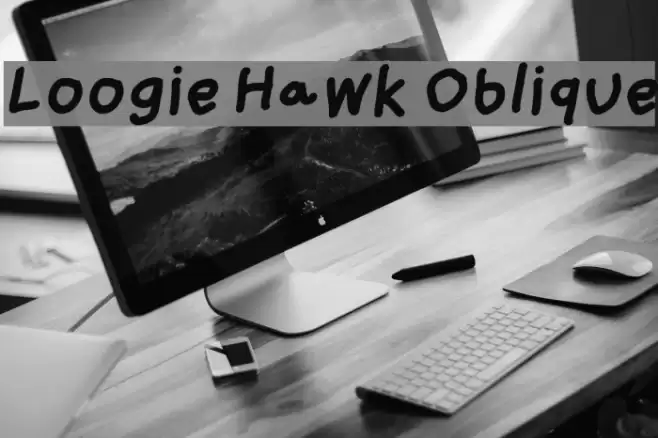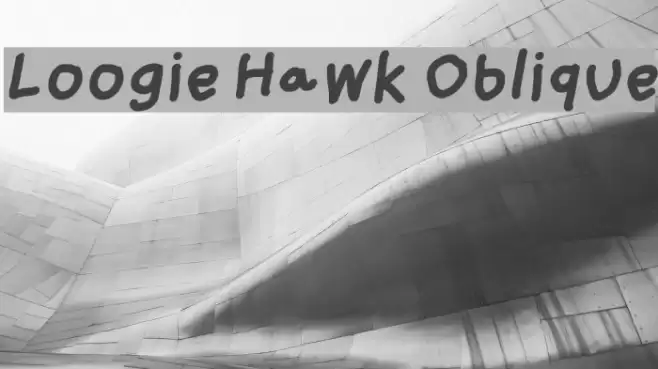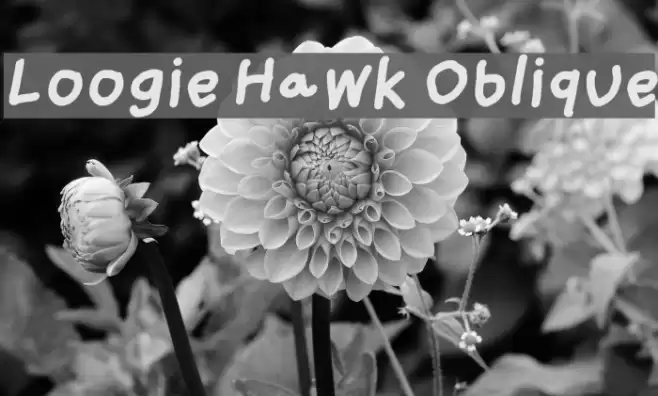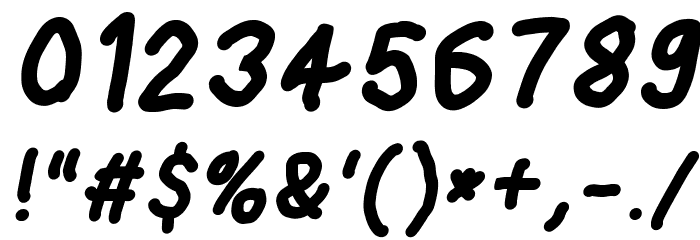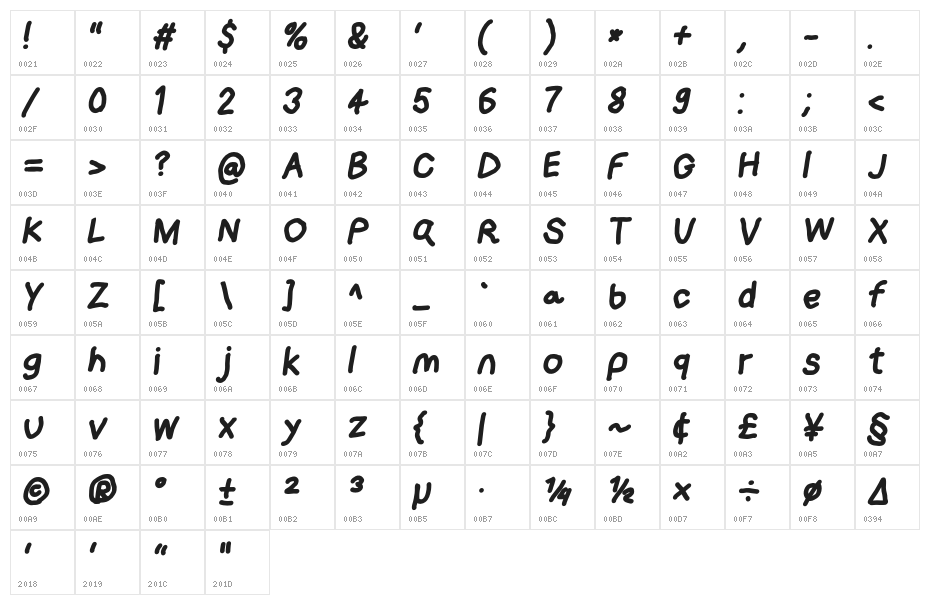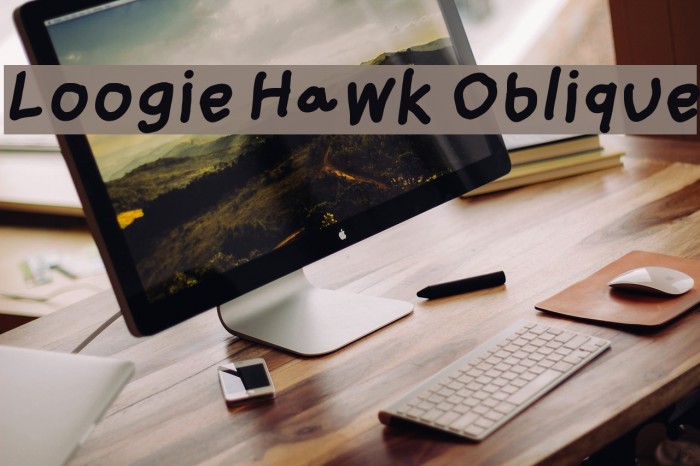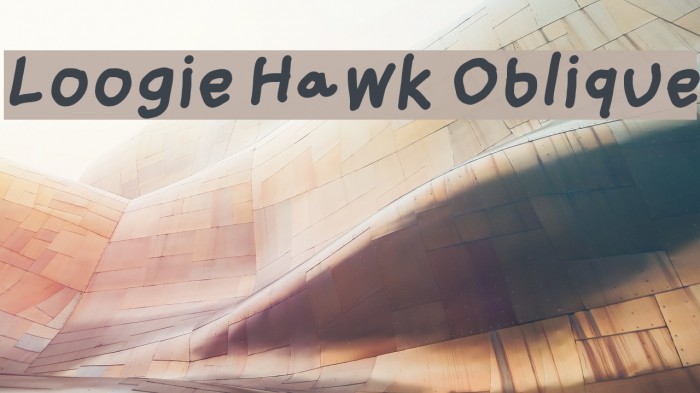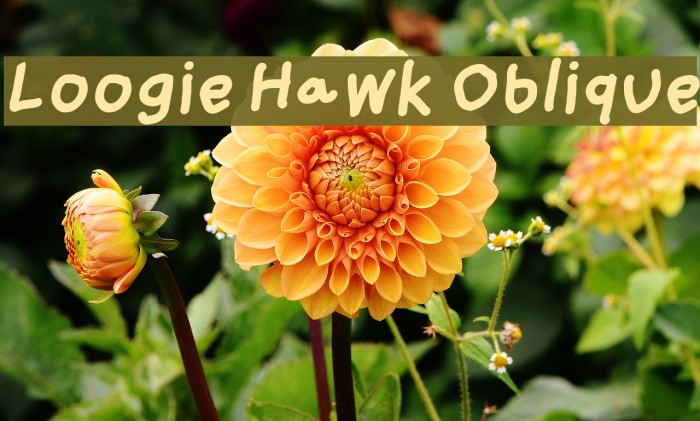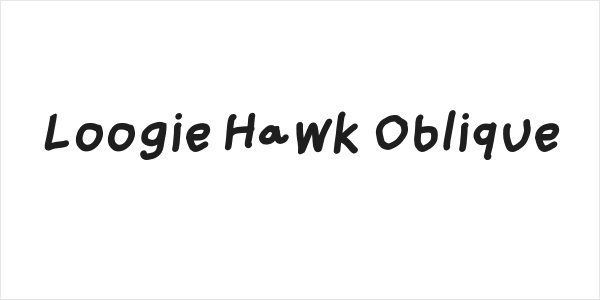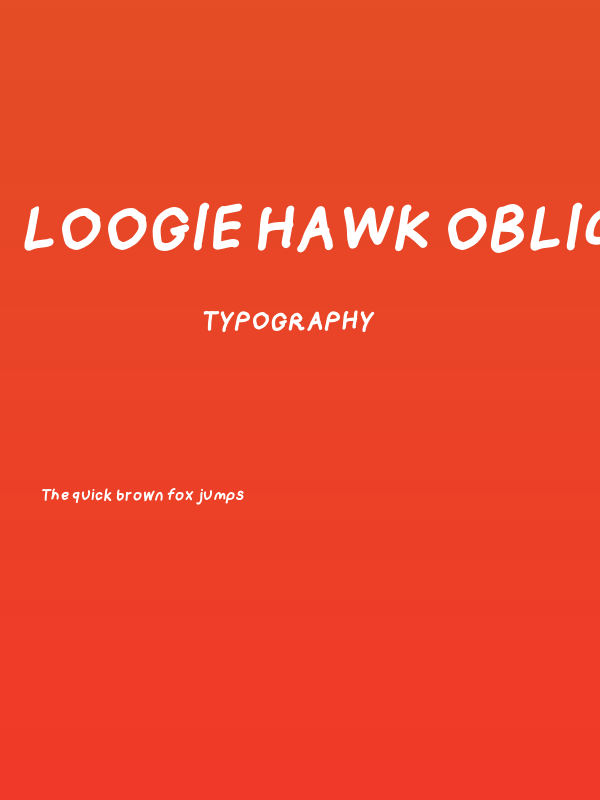
Loogie Hawk Oblique Font
Loogie Hawk Oblique Description
This playful and dynamic font features a handwritten style with a casual and informal appearance. The characters are slightly slanted, giving an oblique effect that adds to its energetic feel. The strokes are bold and rounded, creating a friendly and approachable look. The font maintains consistent thickness throughout, providing a uniform appearance. It includes a full set of uppercase and lowercase letters, numbers, and a variety of special characters, making it versatile for different uses. The overall style is lively and modern, suitable for projects that require a personal touch.
A playful, handwritten font with bold, rounded strokes and an oblique style from Handwritten fonts.
- Proposed Projects: Ideal for children's books, casual invitations, playful branding, and social media graphics.
- Use Case: Headlines, Logos, Informal Text